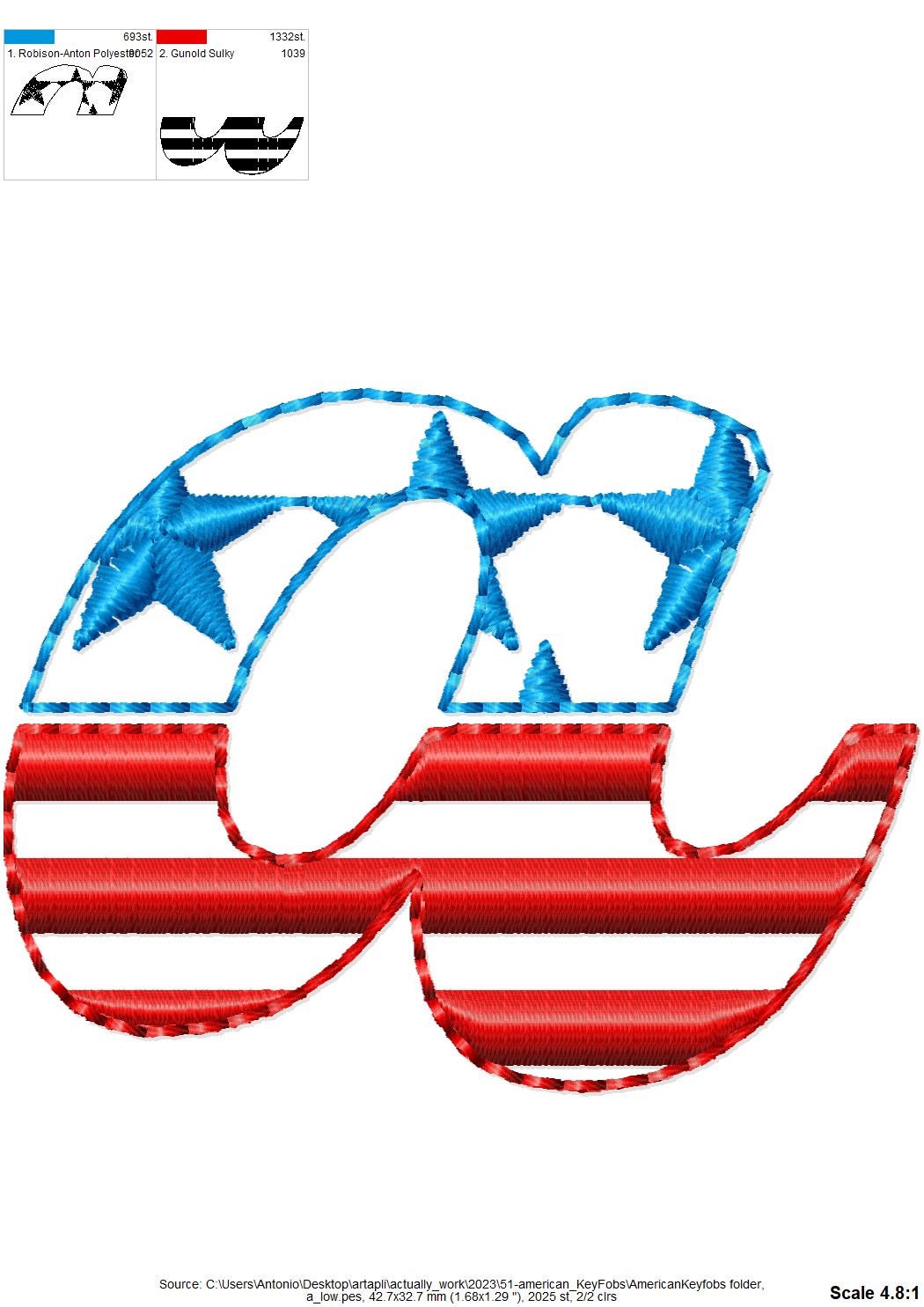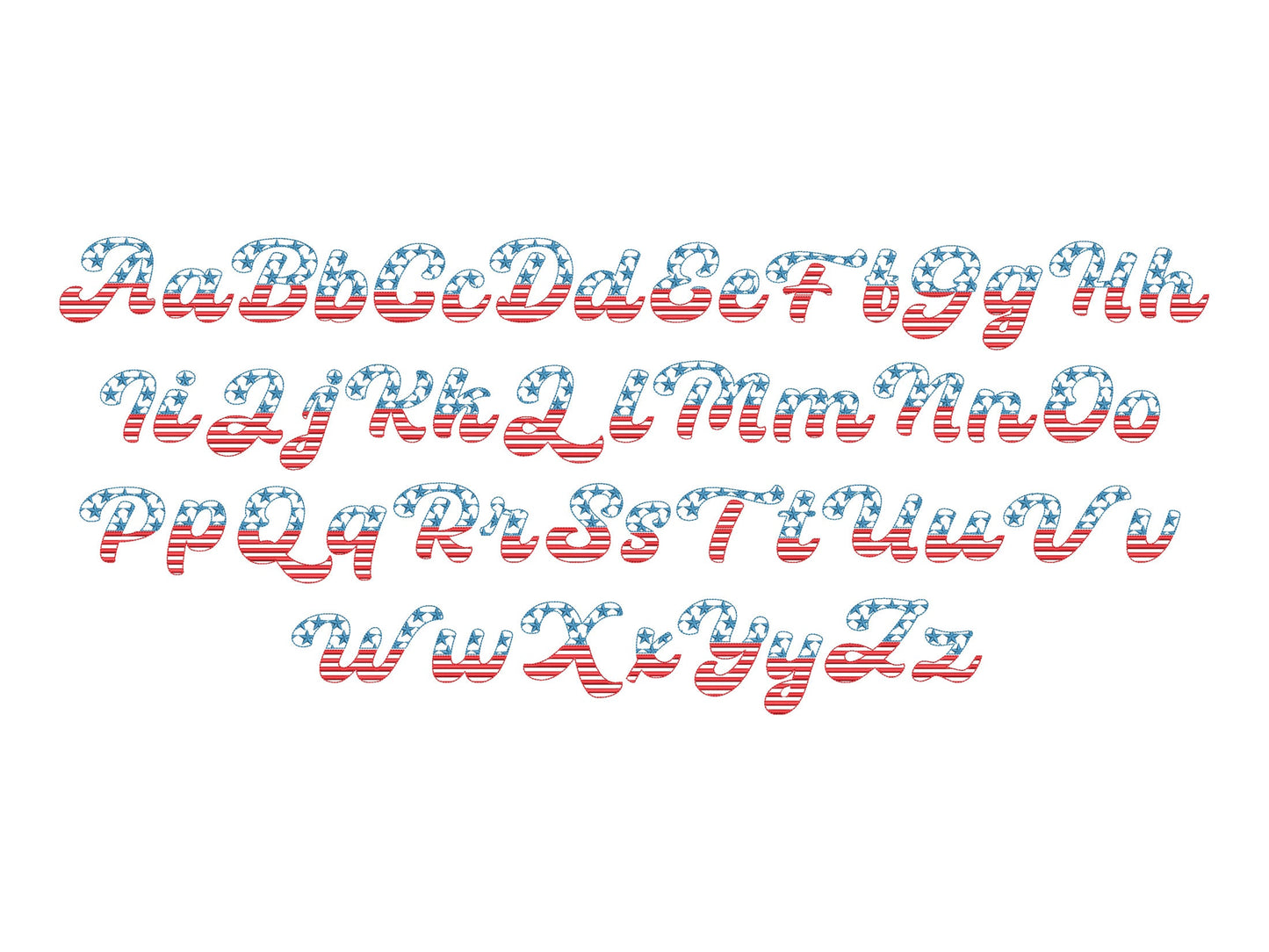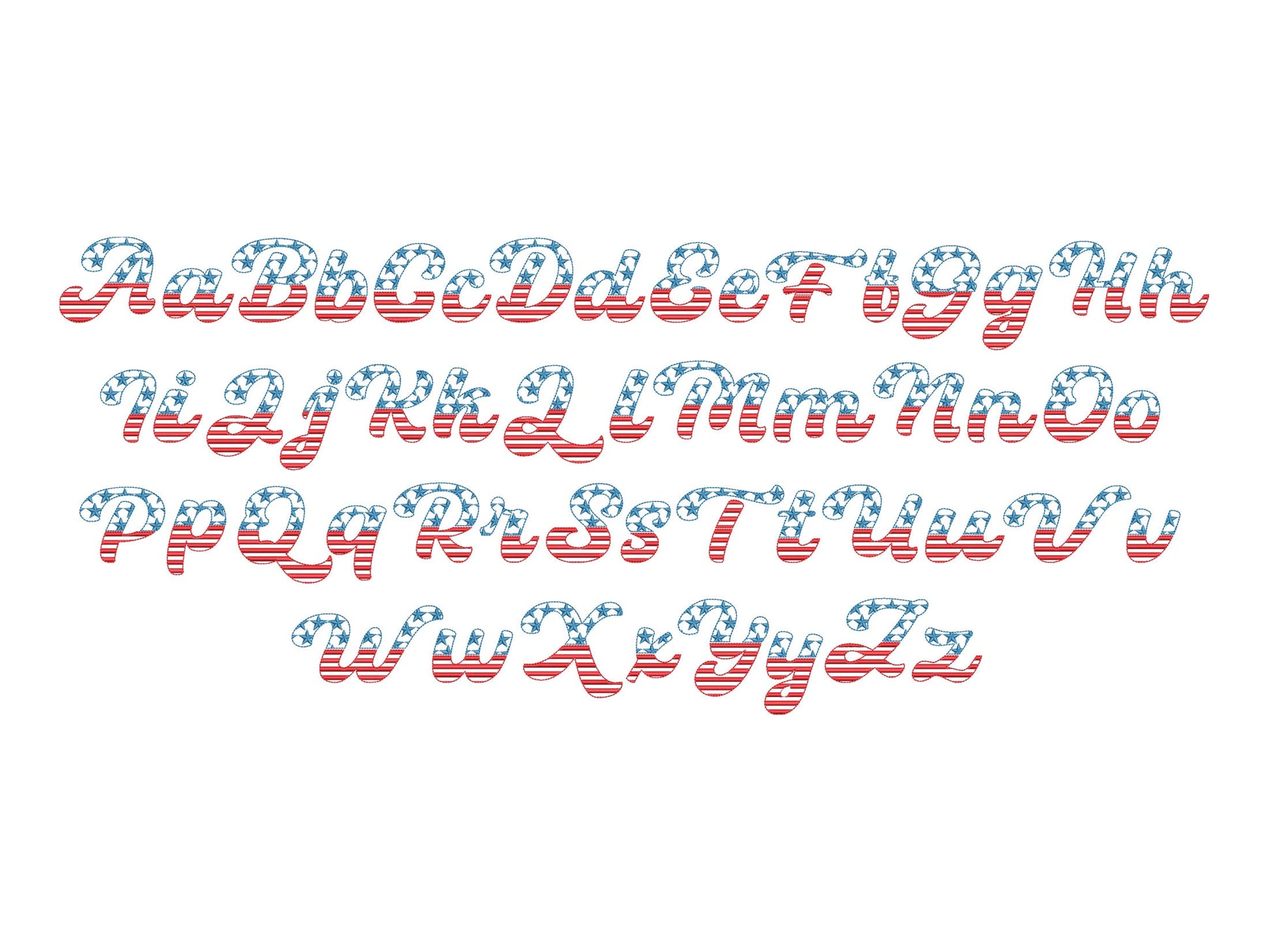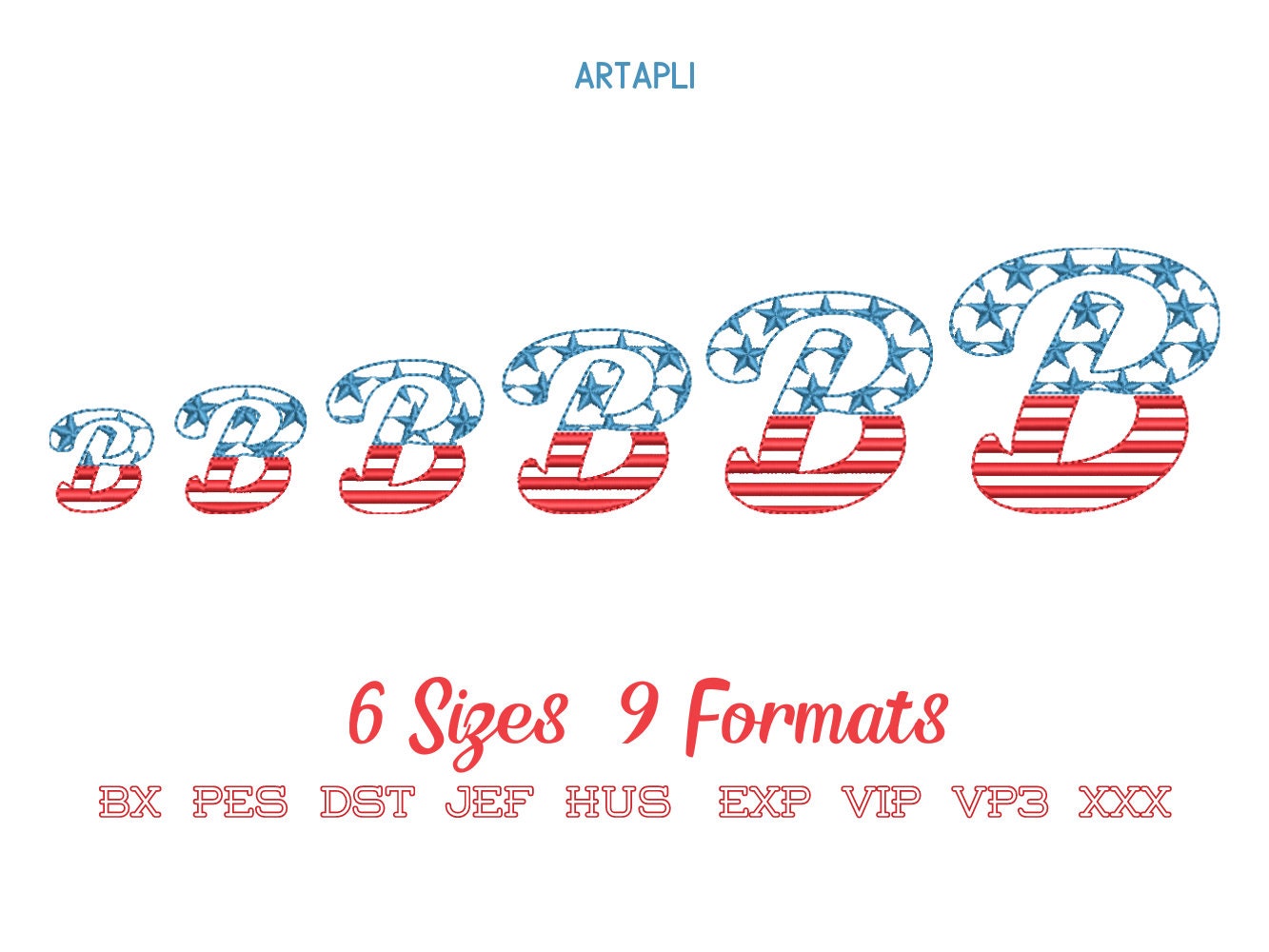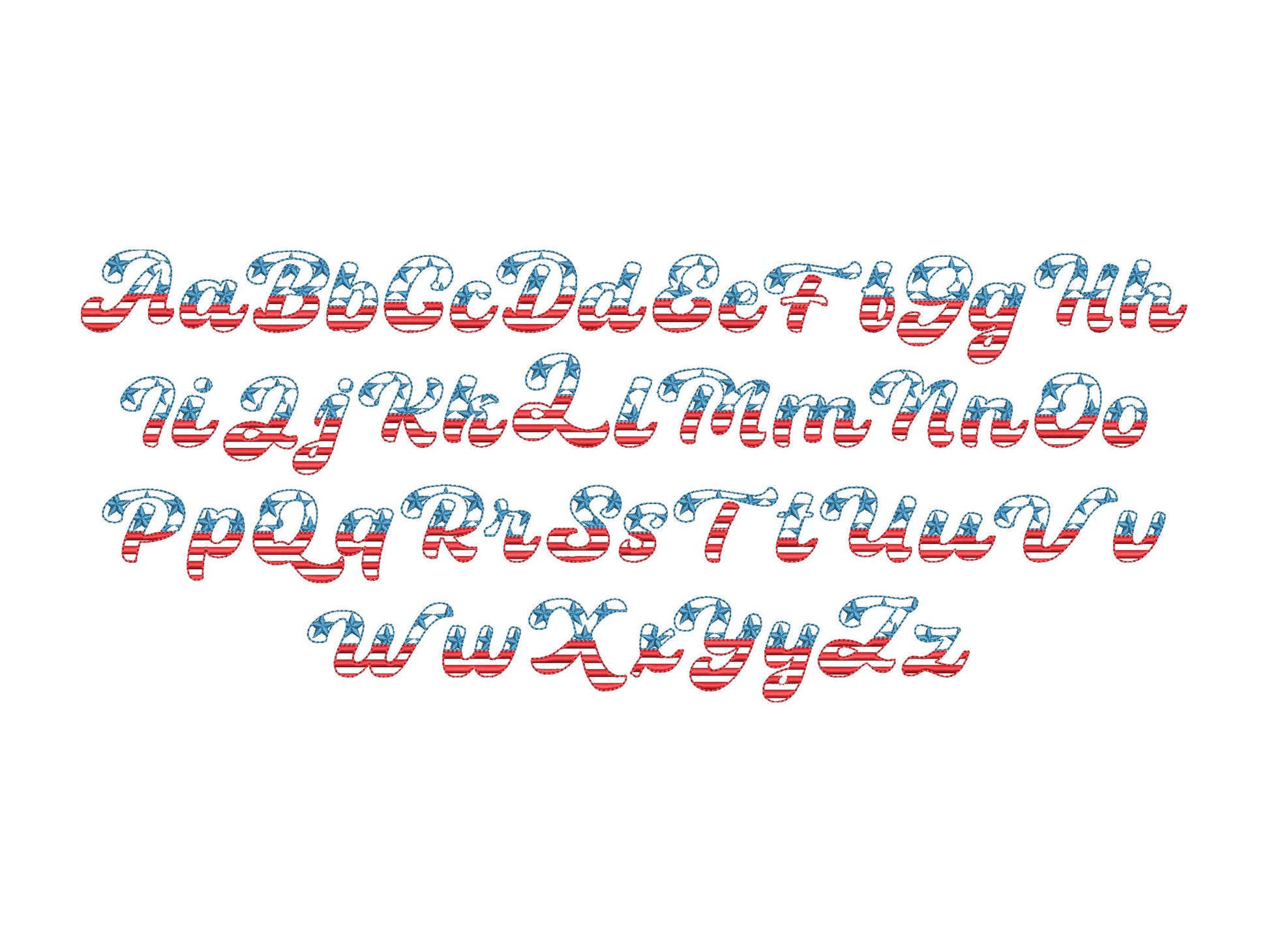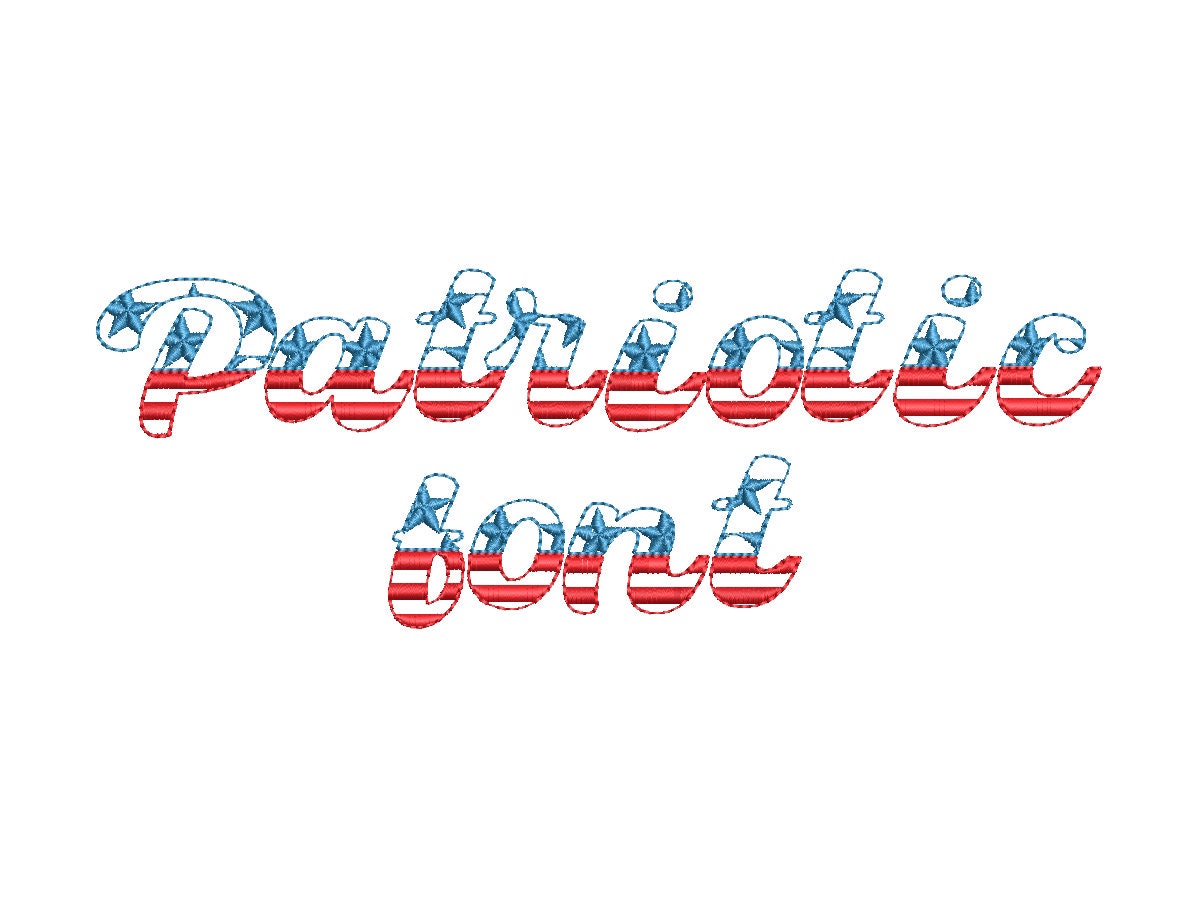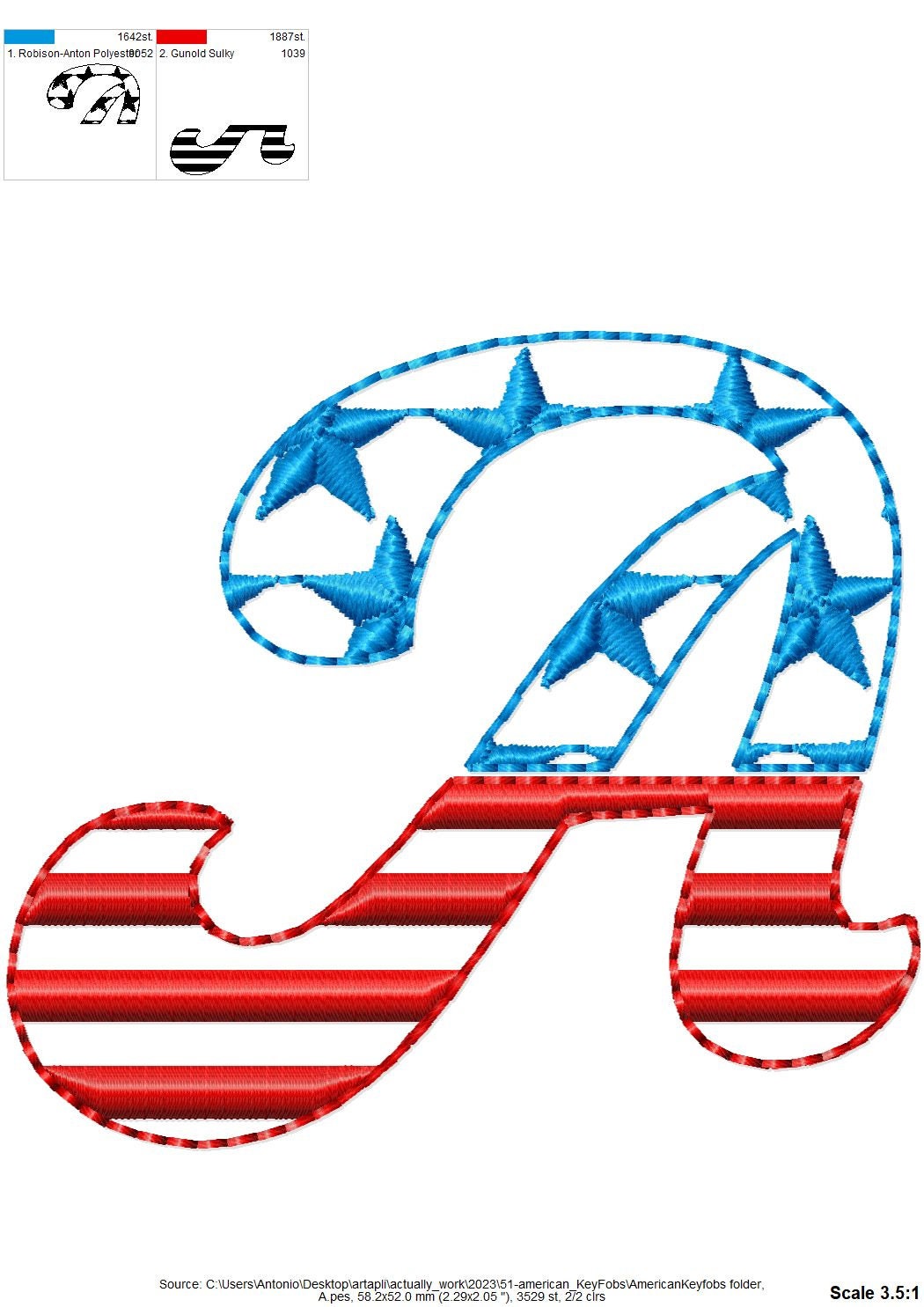
Or click to open the linkA patriotic cursive font with stars and stripes in light stitch, for Fourth of July names and words on shirts and pillows.
A light stitch font, so the fabric shows through. Uppercase and lowercase letters in six sizes: 1.1, 1.4, 1.7, 2, 2.5 and 3 inches.